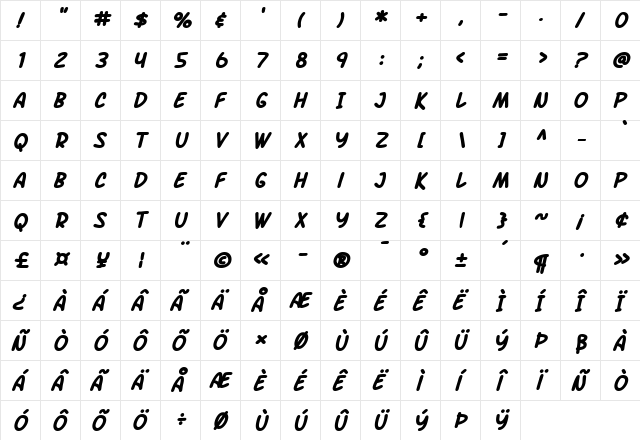
SF Arch Rival Bold Italic
Design Context for SF Arch Rival Typeface
SF Arch Rival is a composed and adaptable typeface that performs quietly and consistently across a wide range of design contexts. The dynamic lean of this cut emphasises speed and emphasis in any layout. The heavy weight commands attention and anchors typographic hierarchies.